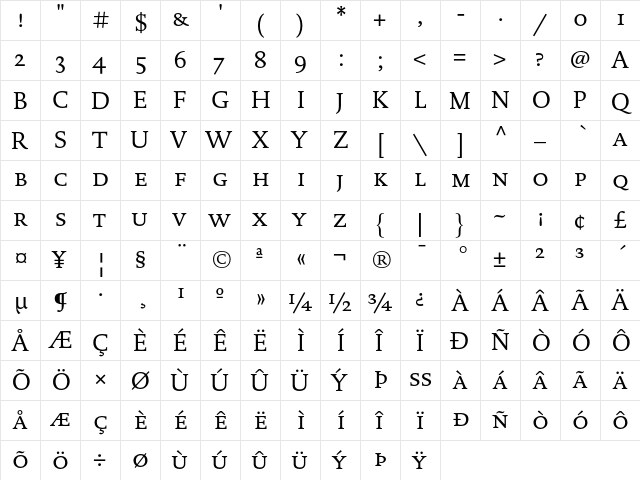
DTL Documenta T Caps Regular
Design Context for DTL Documenta Typeface
DTL Documenta takes a measured approach to typography — its balanced proportions and neutral character make it a reliable workhorse for both digital and print work.
Pro Tip: Use DTL Documenta in both headline and body roles to test its range before committing to a single application.